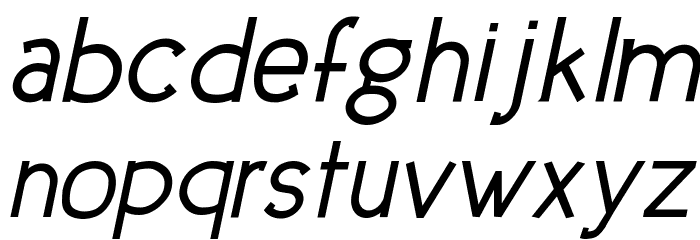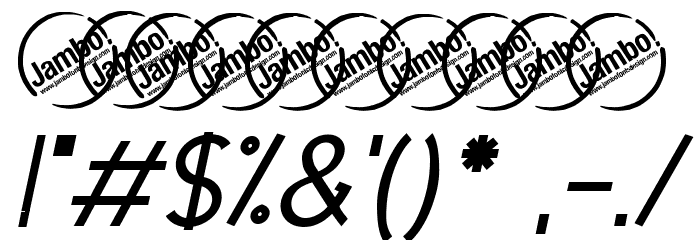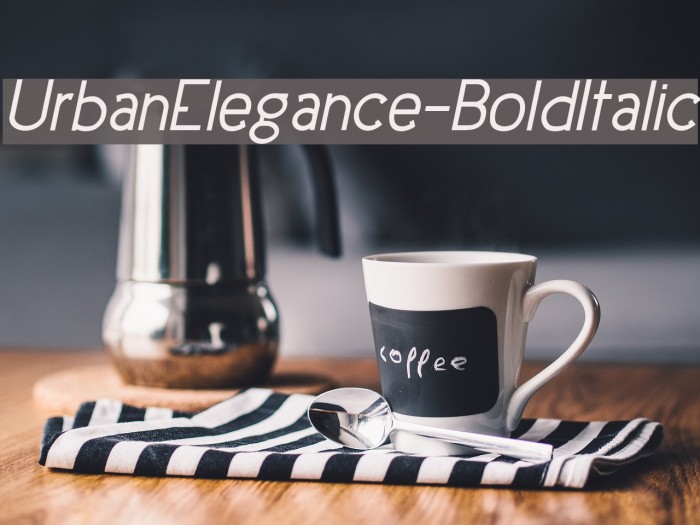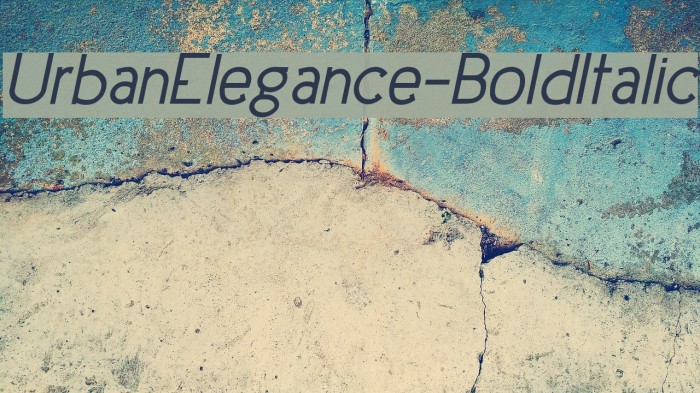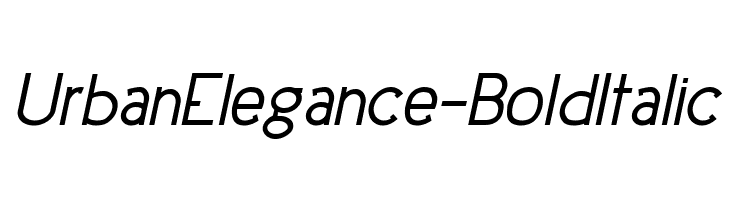
UrbanElegance-BoldItalic Font
This font features a sleek and modern design with a bold and italicized style. The uppercase and lowercase letters are elegantly slanted, giving a sense of movement and sophistication. The characters are well-defined with a consistent stroke width, providing a clean and professional appearance. The numerals and special characters maintain the same stylistic approach, ensuring uniformity across all text elements. This font is suitable for projects that require a contemporary and stylish look, making it ideal for branding, advertising, and digital media.
A sleek, bold italic font with a modern and sophisticated style.
- Font: UrbanElegance-BoldItalic
by JamboFonts - Weight: Bold Italic
- Category: Sans-Serif
- Use Case: Headlines, Logos, Branding